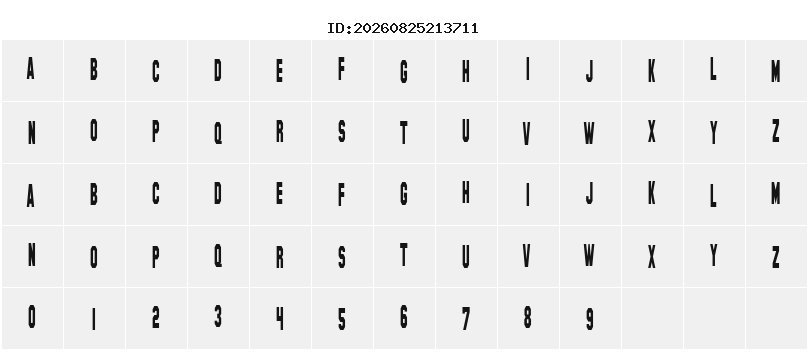
SF Hollywood Hills Condensed Preview
• Font Name: SF Hollywood Hills Condensed
• Full Font Name: SF Hollywood Hills Condensed
About SF Hollywood Hills Condensed.ttf
SF Hollywood Hills Condensed.ttf is a modern, elegant sans-serif font designed for ultimate readability and visual harmony. Perfect for branding, headlines, web design, and print materials.